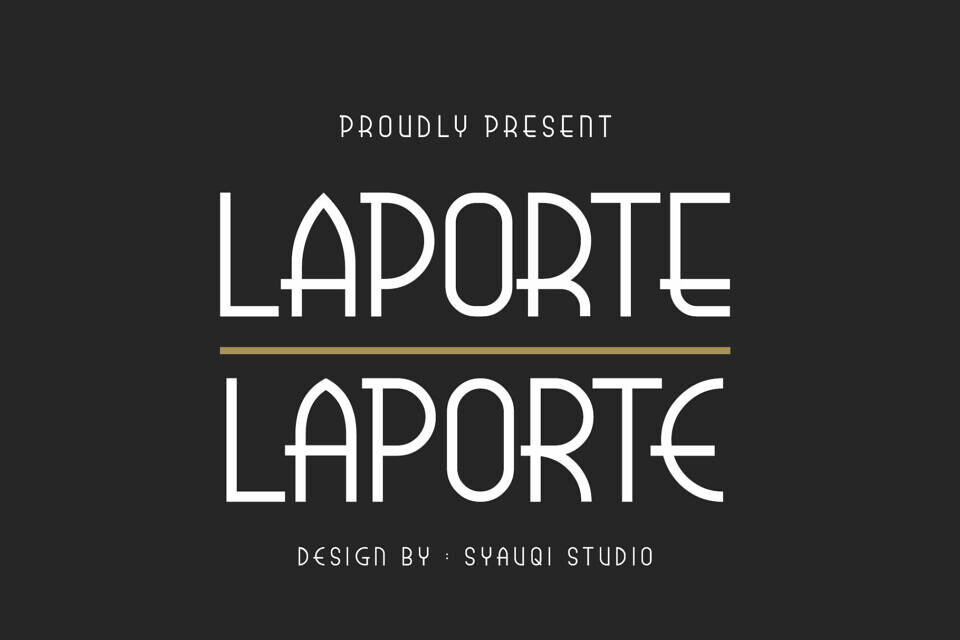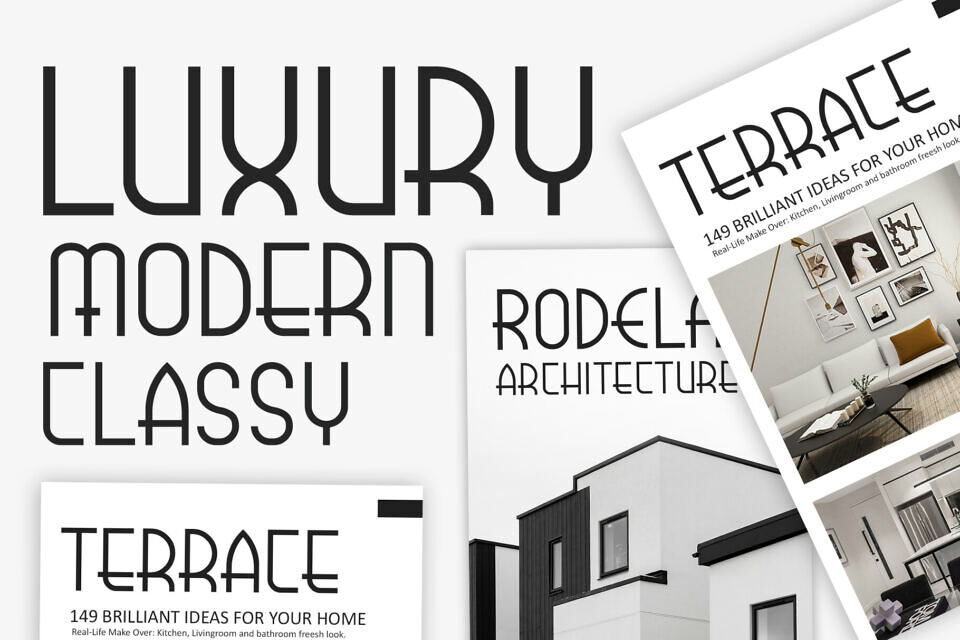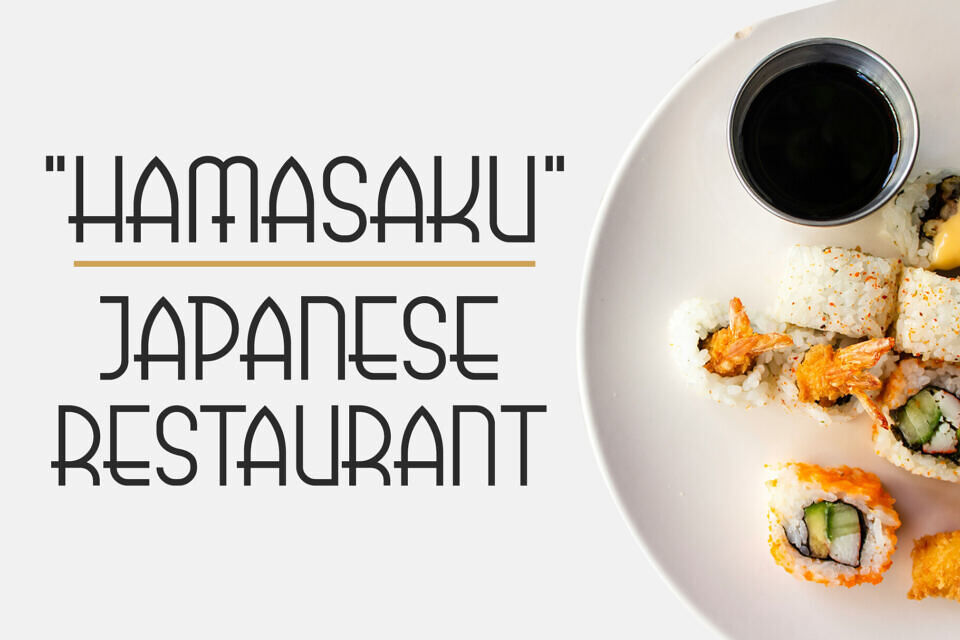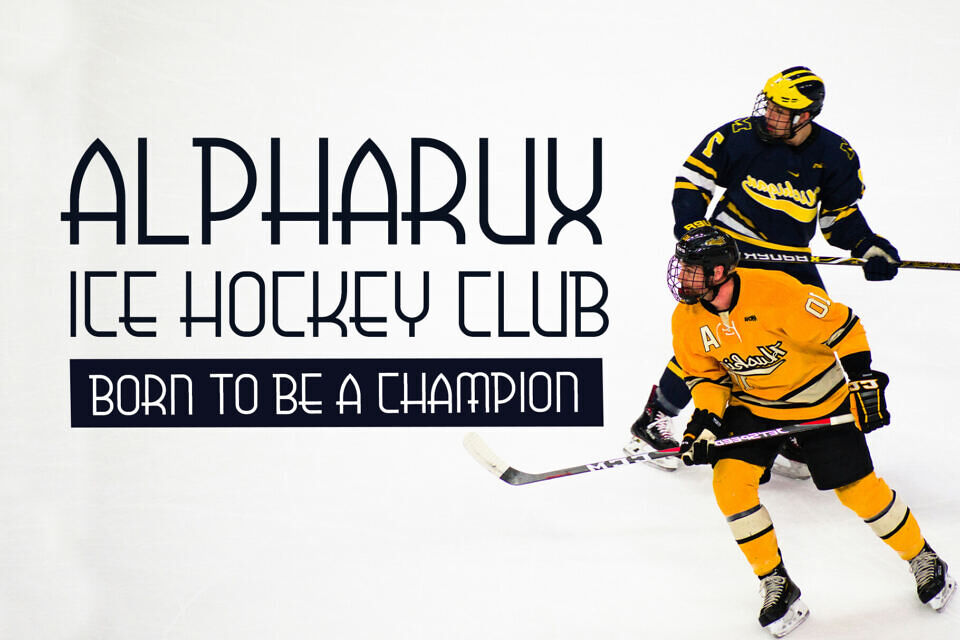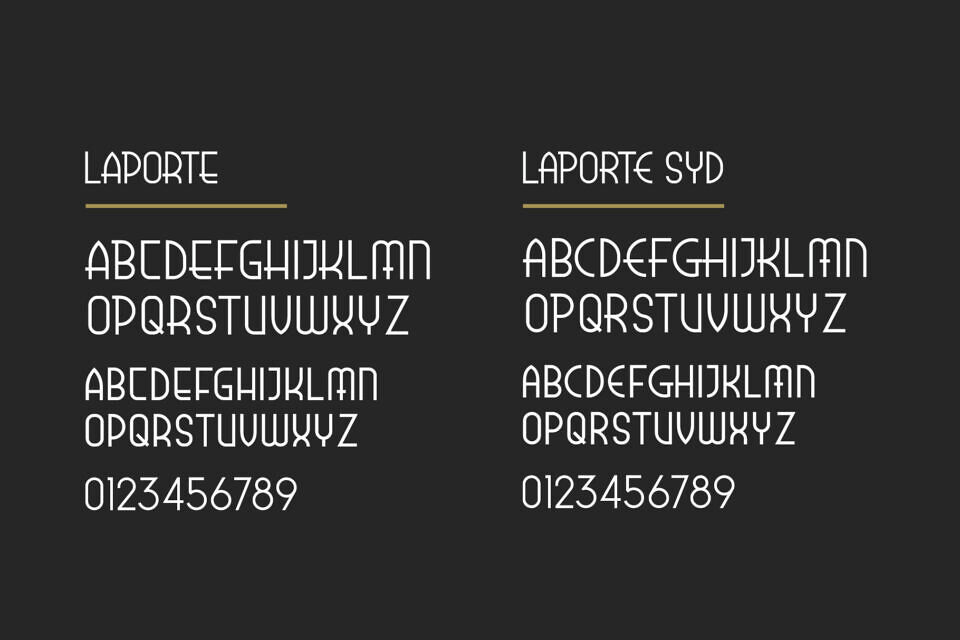
Laporte, a sleek sans-serif font, brings a touch of elegance with its refined lines and curves. It’s versatile and suitable for various projects, including classic, vintage, or Japanese-inspired designs, as well as social media, logos, invitations, and product packaging, making it perfect for adding a timeless charm to any creative work.